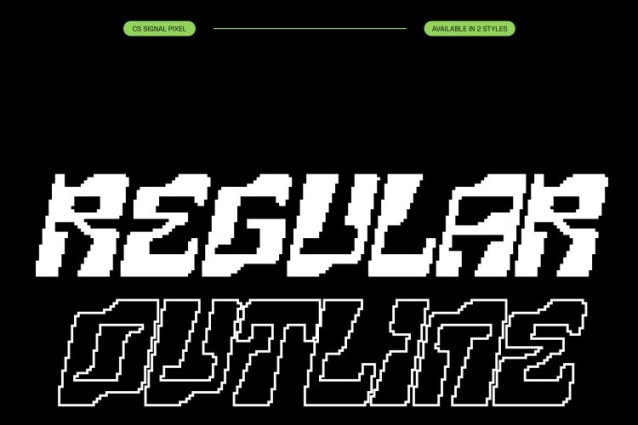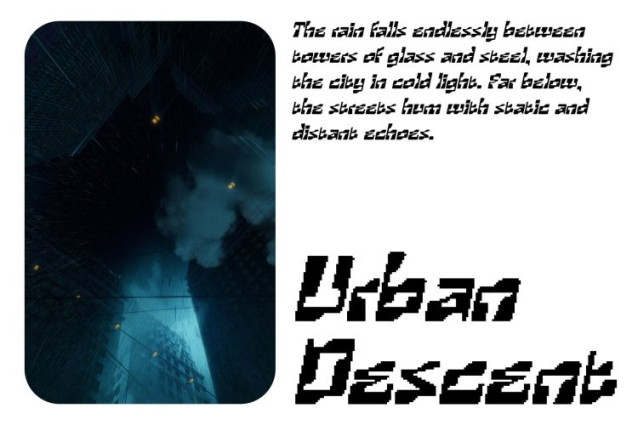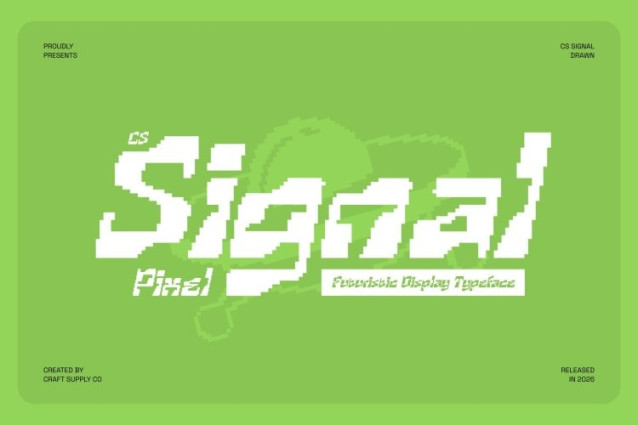
CS Signal Pixel Font
CS Signal Pixel Font This is a bold display font that captures the raw energy of technology and digital culture. Built with structured pixel geometry and sharp mechanical detailing, it delivers a dramatic, high-impact presence. The fusion of irregular forms and digital precision gives it a sleek yet disruptive aesthetic perfect for modern, tech-forward visuals.
Irregular Block Structure with Circuit-Like Rhythm
Defined by its unconventional block shapes and modular pixel construction, this font echoes the visual language of signals, circuits, and engineered systems. The calculated irregularity creates a dynamic rhythm, reinforcing its industrial and cyber-inspired character. Each letter feels constructed rather than written solid, intentional, and futuristic.
Engineered for Tech and Digital Impact
This font thrives in technology branding, futuristic posters, EDM artwork, esports graphics, and gaming visuals. Its mechanical structure and pixel-defined edges amplify innovation and strength, ensuring powerful visibility across both digital screens and print media.
Bold Versatility for Experimental Branding
Beyond tech applications, adapts seamlessly to logos, packaging, motion graphics, and avant-garde editorial layouts. Its distinctive structure commands attention while communicating a forward-looking identity. A perfect choice for designers seeking bold innovation with unmistakable pixel-driven precision.